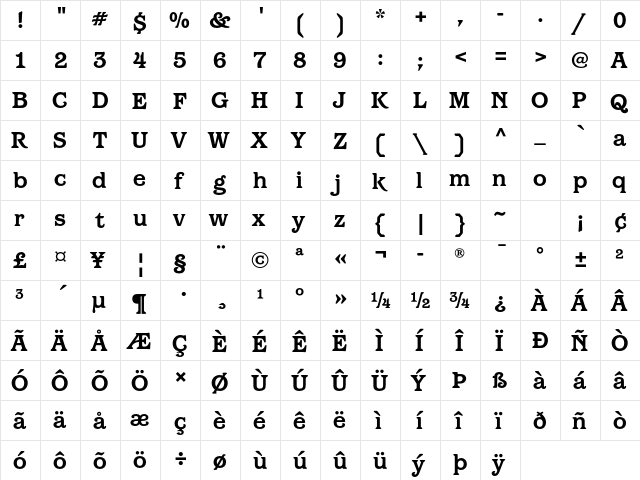
Barcelona ITC Std Bold
| Designer | Edward Benguiat |
Design Context for Barcelona ITC Std Typeface
Barcelona ITC Std is a composed and adaptable typeface that performs quietly and consistently across a wide range of design contexts. Its bold stroke weight gives it real presence on the page.